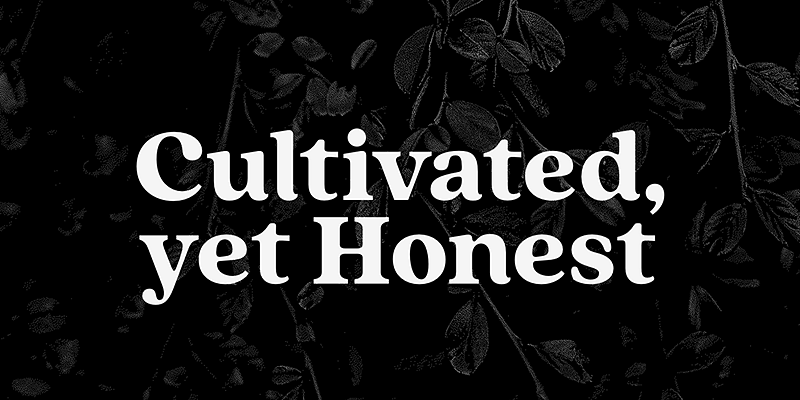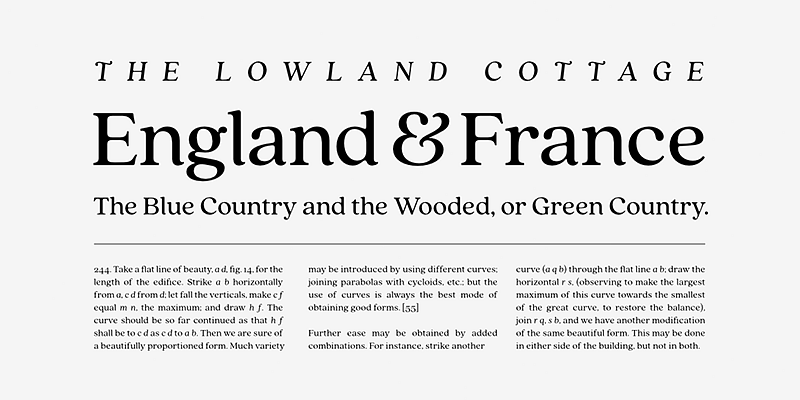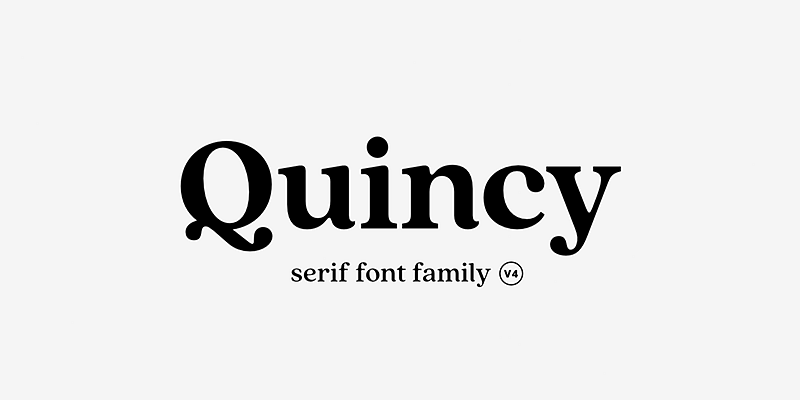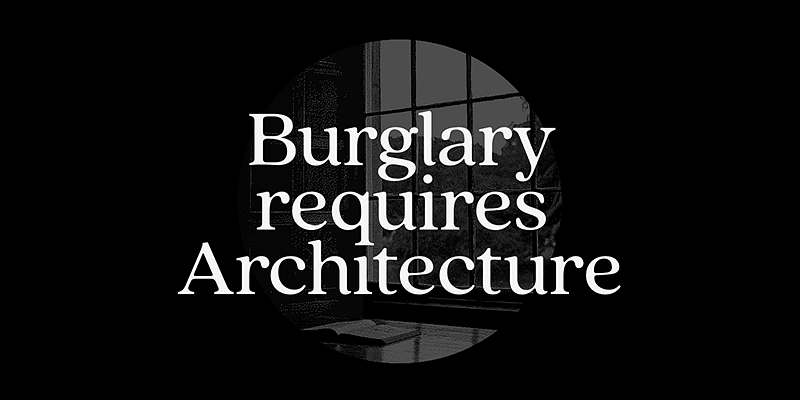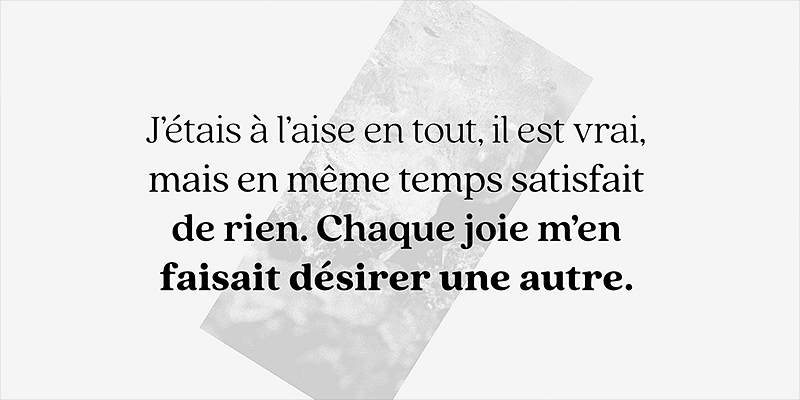
The warm letterforms and medium contrast of Quincy CF give any text a smooth, flowing motion. Small variations and human touches add charm, with Quincy’s boldest weights especially strong as large and medium display type.